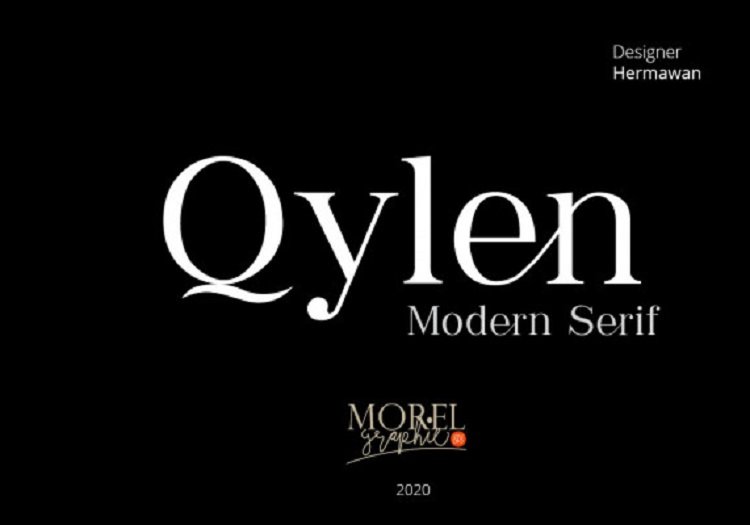
Qylen Serif Font
Thank you for looking Qylen Font. This is an elegant & modern typeface that uses ligatures to smoothly link letters. It’s perfect for logos, wedding monograms or pull quotes.
It’s perfect for all kinds of branding project, logos, posters, flyers, web design, wedding invitations etc. It’s versatile enough so you can use it for modern and minimal design or go for a little retro vibes.
– Ligatures